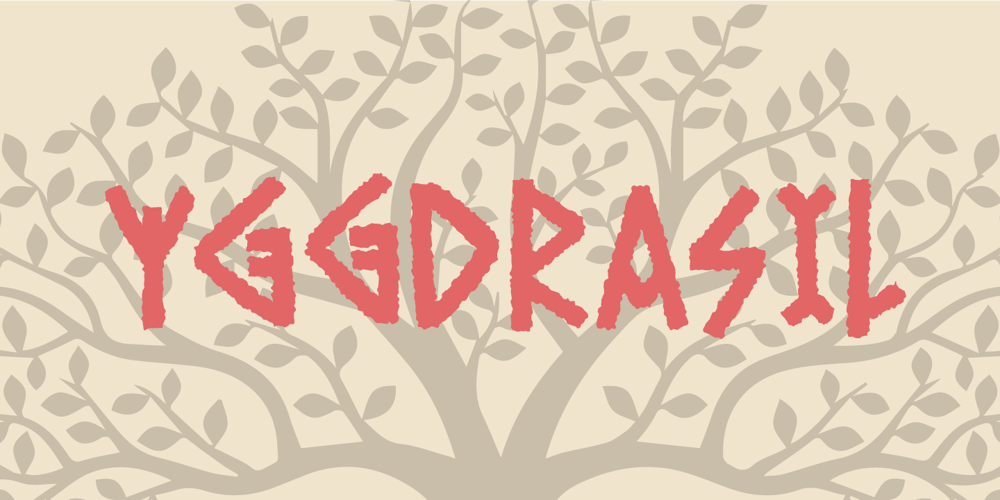
Yggdrasil
Yggdrasil font
Yggdrasil Font Family was designed by Jakob Fischer and published by Bogstav. Yggdrasil contains 4 styles and family package options. In Norse mythology, Yggdrasil is the tree of life, which grows right into heaven – maybe even space! It has deep roots, which grows into three different worlds.I made this font in hope that someone with a love to Norse mythology could use it – maybe even for something viking themed!I don’t think that the gods of Norse mythology ever heard of contextual alternates or multilingual support – but I added it, without even asking! – Yggdrasil has 5 different versions of each letter (in both Regular and Rough) and supports loads of different languages!